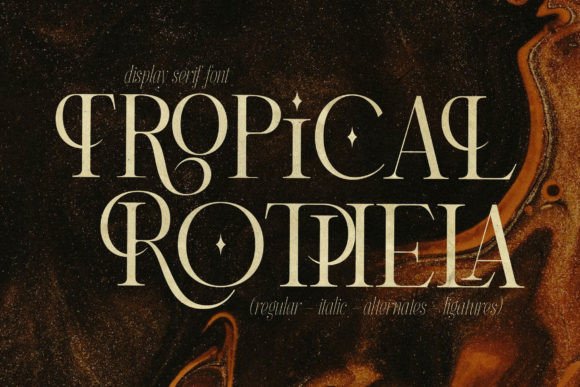
Welcome to the realm of Tropical Rothela, an exquisite serif font that oozes sophistication and charm. Each letter dances with grace, carrying an aura of elegance that will transform your creative projects. Say goodbye to ordinary fonts and embrace the allure of Tropical Rothela, a captivating creation that will leave a lasting impression on your audience.
Unleash your creativity and let your imagination soar with Tropical Rothela, the ultimate font for fashion brands and magazines. Its refined curves and delicate serifs add a touch of luxury to your designs, ensuring they stand out from the mundane. Craft logos that exude elegance and sophistication, captivating the hearts of your clientele. Create magazine layouts that are both visually stunning and informative, drawing readers into your captivating stories.
Design T-shirts that make a statement with Tropical Rothela. Its bold yet graceful presence commands attention, transforming ordinary garments into wearable works of art. Your T-shirt designs will become conversation starters, turning heads wherever you go. Whether you're a seasoned designer or just starting, Tropical Rothela is your gateway to creating designs that exude style and leave an unforgettable impact.
With Tropical Rothela, the possibilities are infinite. Use it for lettering and quotes, adding a touch of inspiration to your social media posts, website banners, and marketing materials. The font's versatility knows no bounds, making it perfect for a wide range of creative endeavors.
Dive into the world of Tropical Rothela and discover a font that is more than just a collection of letters. It's an experience, an expression of your creativity, an embodiment of your unique style. Let Tropical Rothela elevate your designs and captivate your audience.